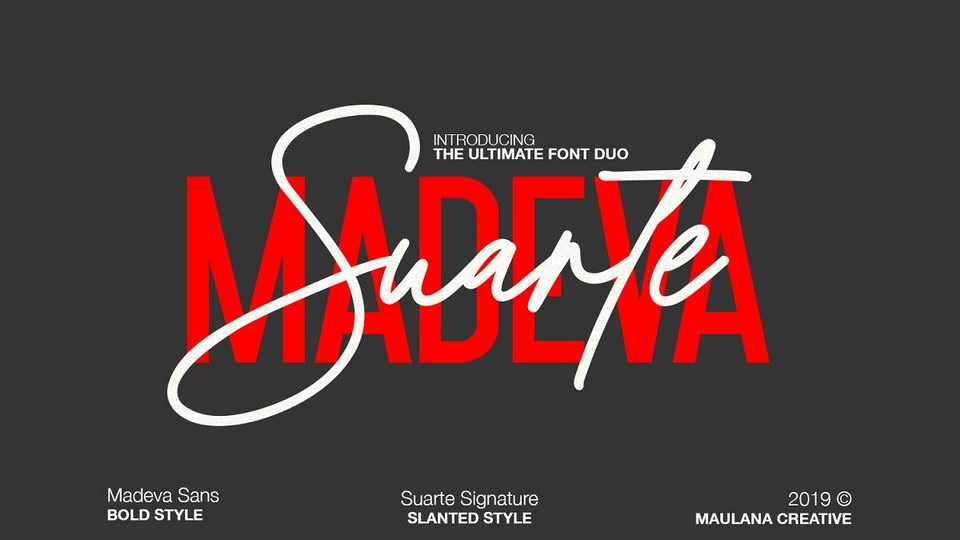
Download Suarte Script, a beautiful signature style font that give your designs an authentic handwritten feel. Suarte font is perfectly suited to signature, stationery, logo, quotes, clothing, branding, packaging design and more.
Designer: Maulana Creative